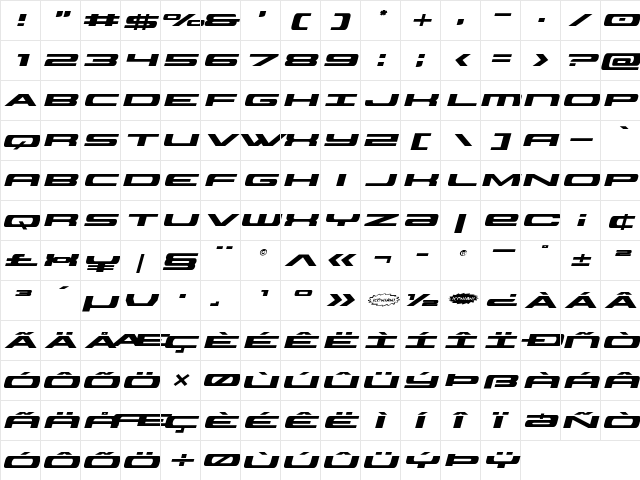
Classic Cobra Expanded Italic Font Preview
Design Context for Classic Cobra Expanded Italic Typeface
Classic Cobra Expanded Italic wears its vintage influences proudly, with letterforms that recall mid-century signage, classic packaging, and nostalgia-driven design. The dynamic lean of this cut emphasises speed and emphasis in any layout.
Font Pairing: Combine Classic Cobra Expanded Italic with a simple slab or neutral sans — period-accurate companions reinforce the vintage feel without competing for attention.
Pro Tip: Lean into Classic Cobra Expanded Italic's period character by pairing it with aged paper textures, muted colour palettes, and vintage illustration styles.